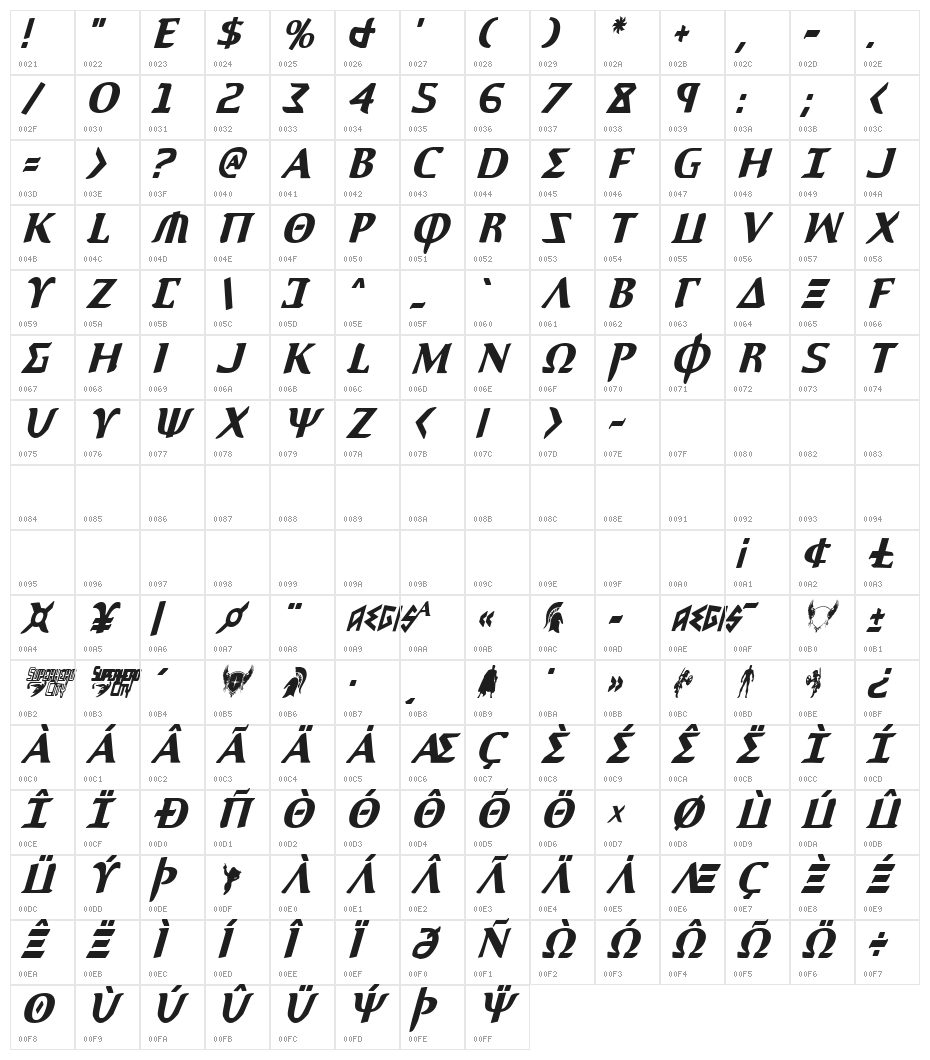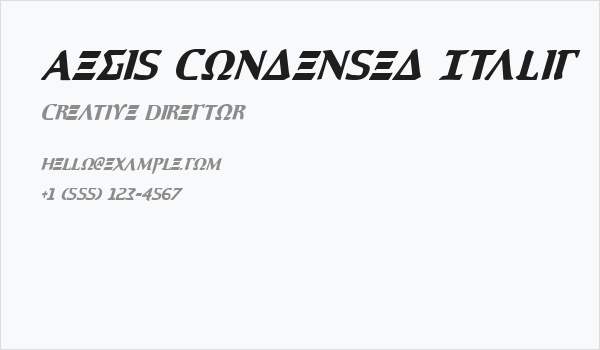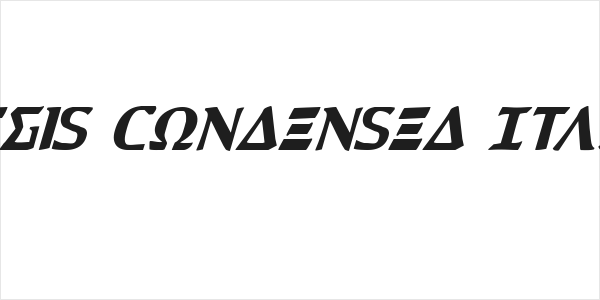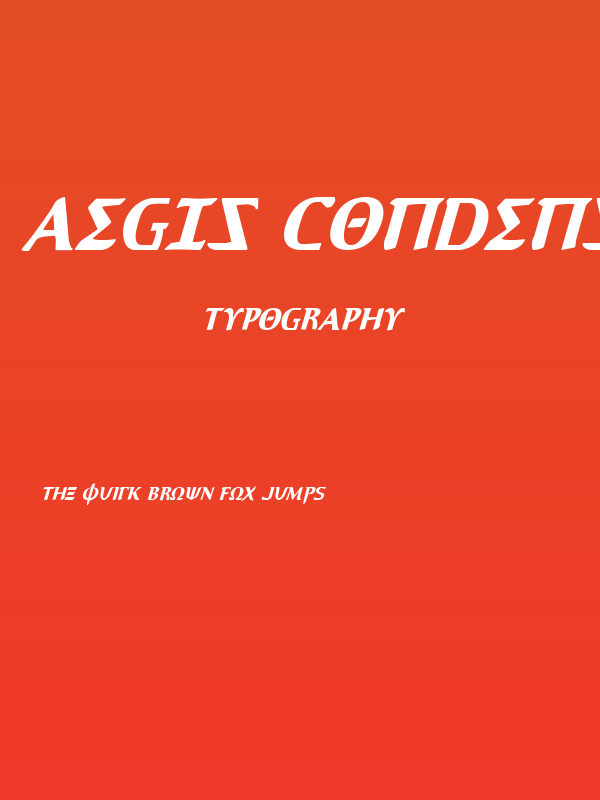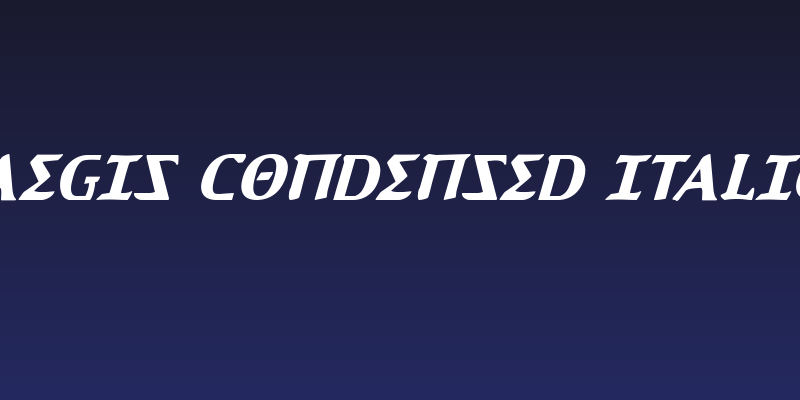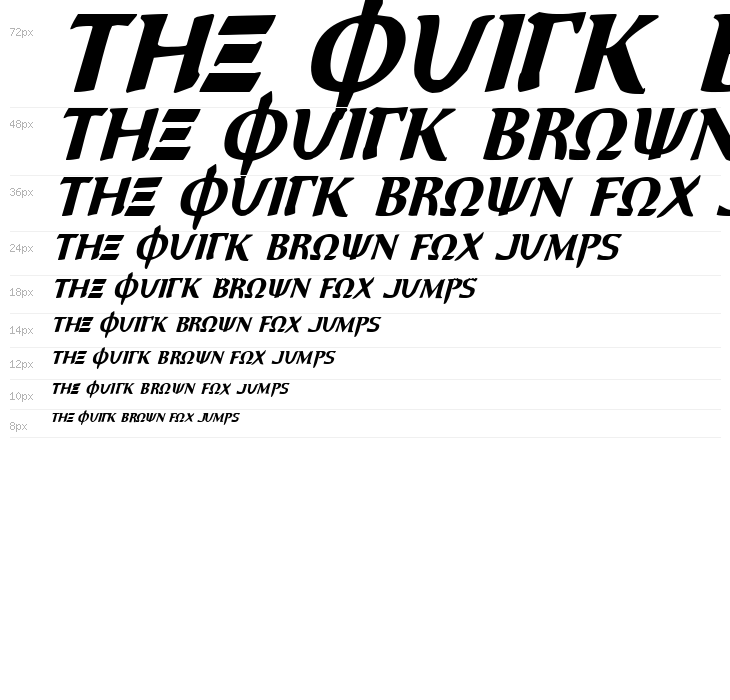
Aegis Condensed Italic Font
Aegis Condensed Italic Description
This font features a bold and dynamic style with a condensed and italicized form. The characters exhibit a strong forward slant, giving a sense of motion and urgency. The strokes are thick and consistent, with sharp angles and edges that create a modern and assertive appearance. The uppercase and lowercase letters maintain a uniform height, enhancing the condensed look. Numbers and special characters are designed with the same boldness and angularity, ensuring consistency across all glyphs. This font is well-suited for making a strong visual impact.